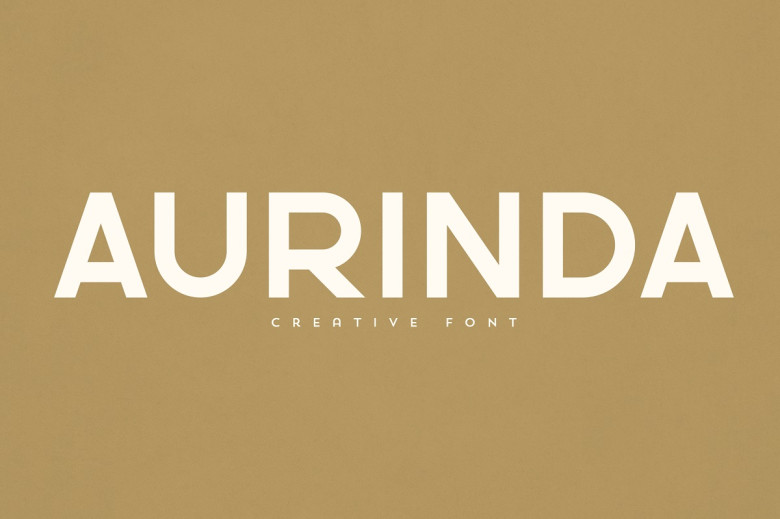
Aurinda Font
Aurinda will give your typography an eye-catching, distinct look! As a versatile sans-serif font, Aurinda adds elegance and charm to logos, branding or text projects and designs; packaging designs; homewares; magazine headers or as stylish text over any background image.
Aurinda Sans Serif Font